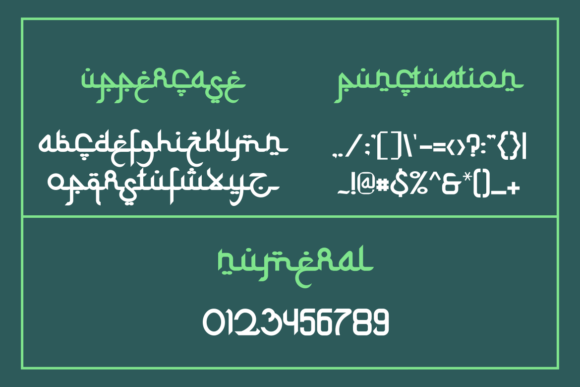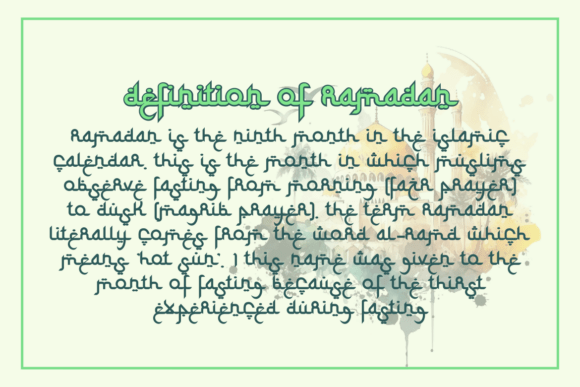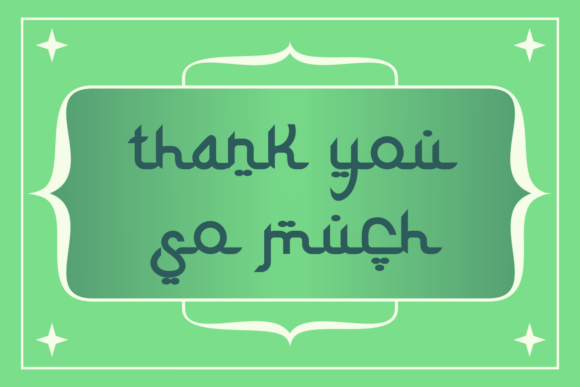
Khusnul Font – Free Download
Introduction to Khusnul Font
Khiqhil is a stunning Arabic-inspired display font that beautifully blends cultural essence with modern design.
Featuring elegant curves and unique letterforms, this typeface is ideal for branding, posters, Ramadan designs, Islamic-themed projects, and more Its artistic balance between tradition and contemporary style makes it a versatile choice for designers looking to add an exotic touch.
Key Features of Khusnul Font
Why Choose Khusnul Font?